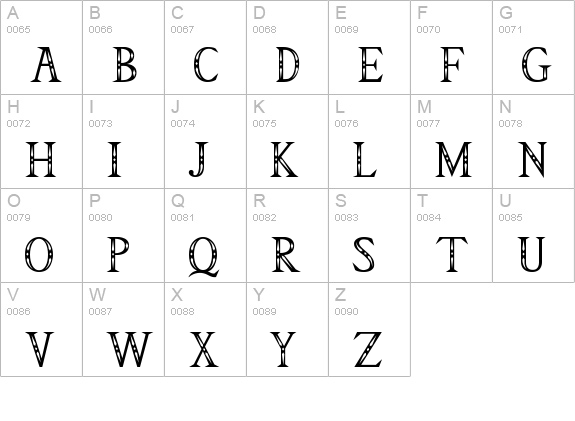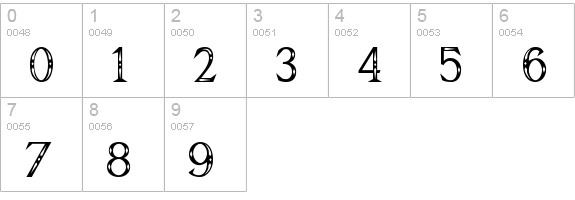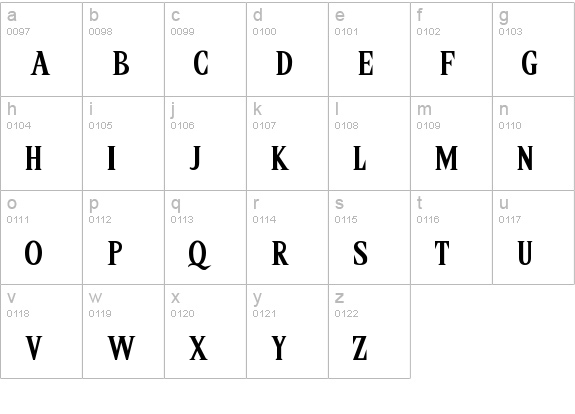
Triforce Font Details
Introducing Triforce font, a captivating typeface that seamlessly combines elegance with a touch of playfulness. This unique font is bound to catch the eye and add a special flair to any design project. With its intricate lines and well-balanced proportions, Triforce font exudes a sense of modern sophistication that will elevate your creations to new heights. What sets Triforce font apart is not only its stunning aesthetics but also its versatility. Whether you're designing a logo, crafting a headline, or creating eye-catching titles, this font effortlessly adapts to various contexts, making it a go-to choice for designers and creatives alike. But what truly sets Triforce font apart is its accessibility. As a font that truly believes in the power of creativity, it is available for free download at FontsMarket.com. Embracing the spirit of collaboration and sharing, Triforce font aims to provide an opportunity for all designers, regardless of their budget, to access high-quality typography that will make their designs shine. So, let your imagination run wild and bring your vision to life with Triforce font. With its captivating charm and the freedom to explore, this font is sure to become an essential tool in your creative arsenal. Embrace the power of Triforce font, and watch your designs transcend boundaries as you unleash your creativity.